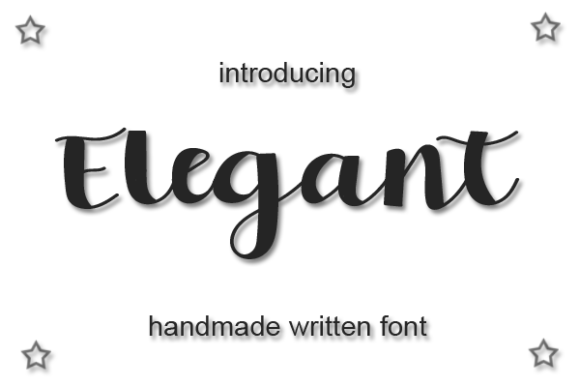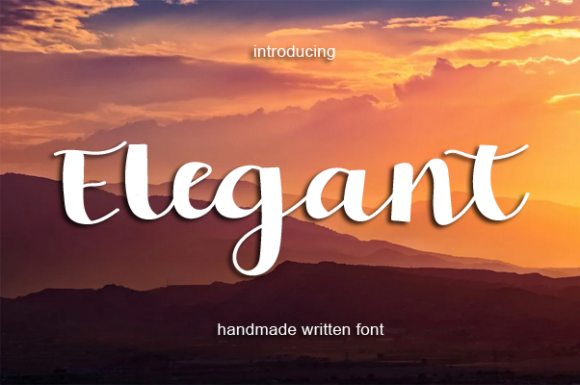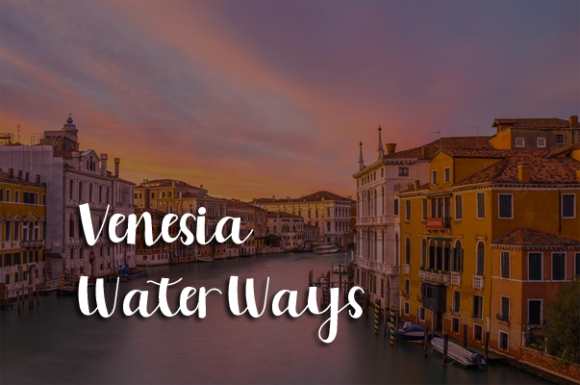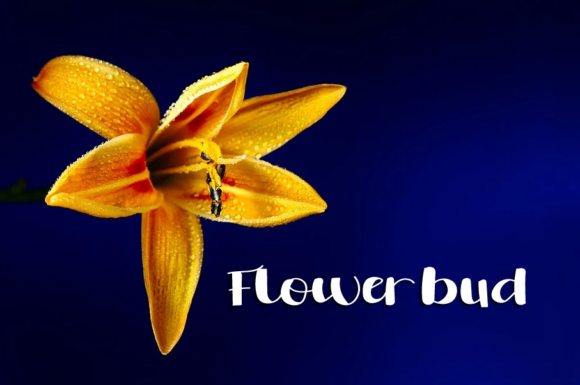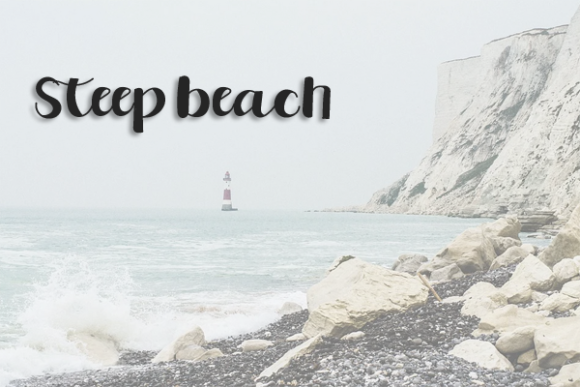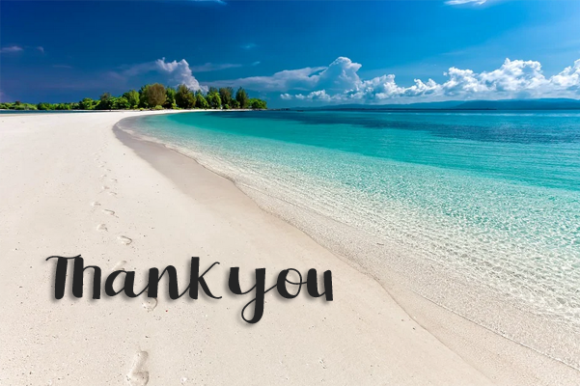
Elegant Font
About Elegant Font
Elegant is a flowing and timeless handwritten font. It is the best choice for creating eye catching logos, branding and quotes. Every letter has a unique and beautiful touch, which will make your design come alive!